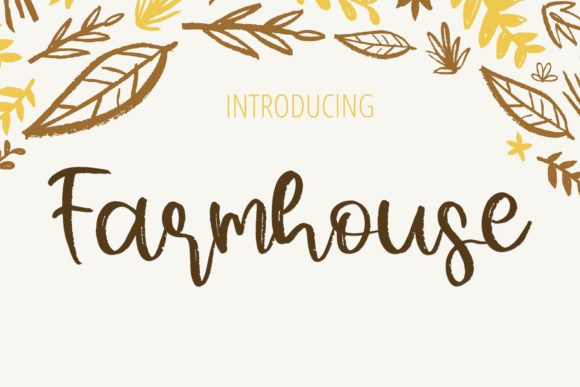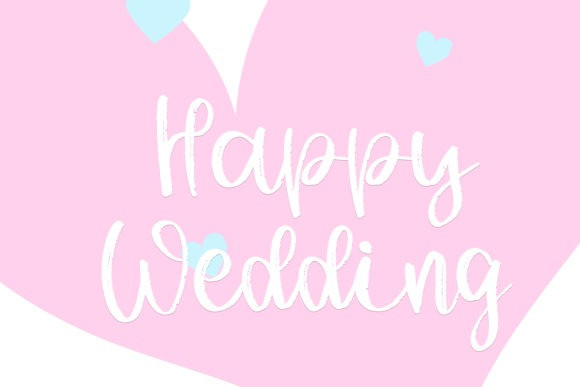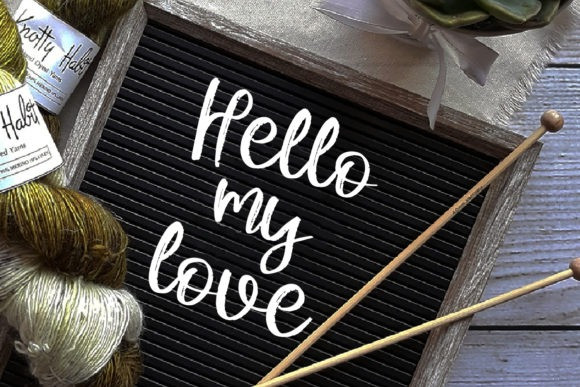
Farmhouse Brush Font
Farmhouse is a sweet brushed handwritten font. Its distinct and well rounded letters make this font a masterpiece. Fall in love with its incredibly versatile style and use it to create spectacular designs!